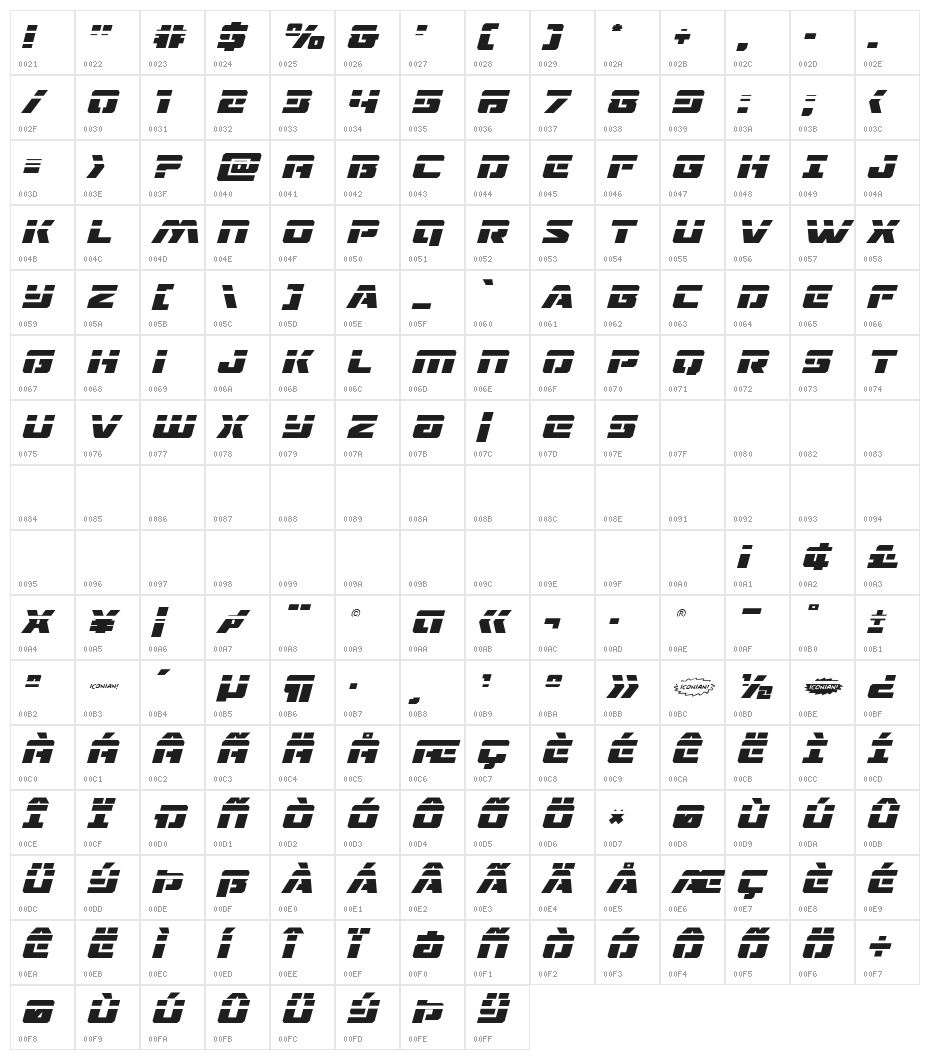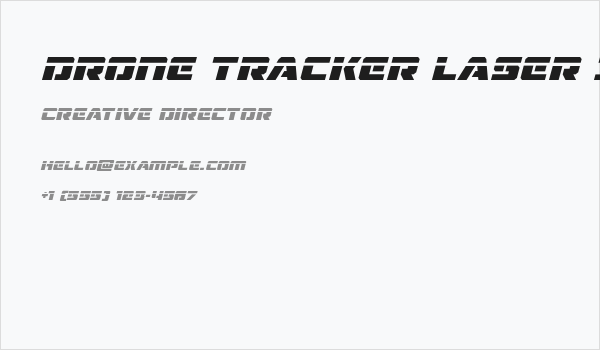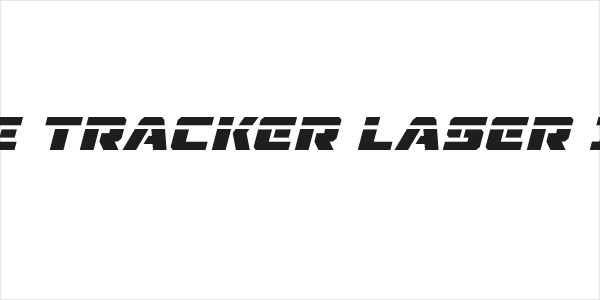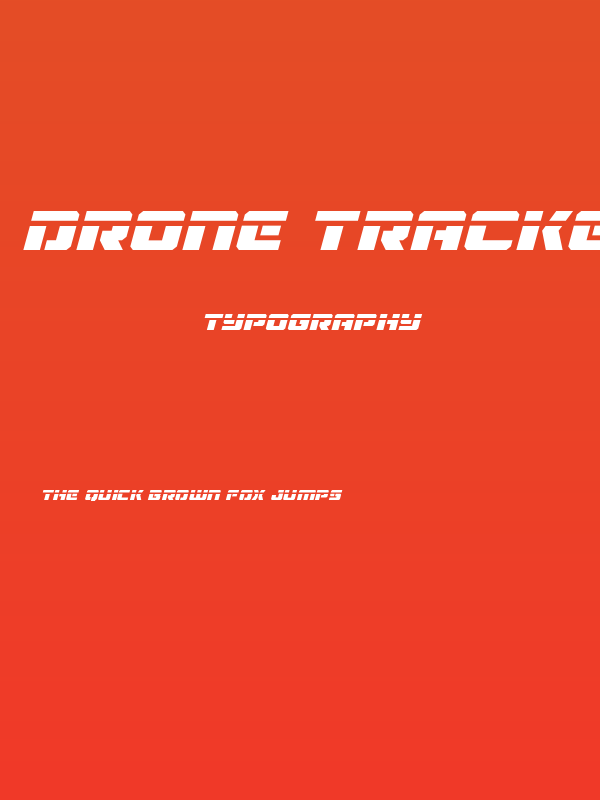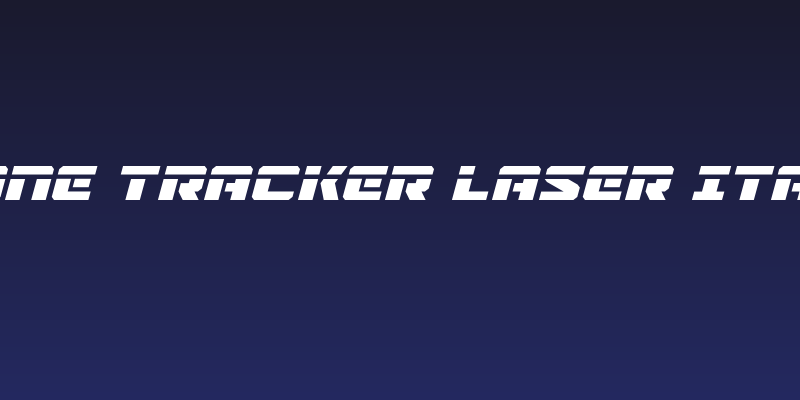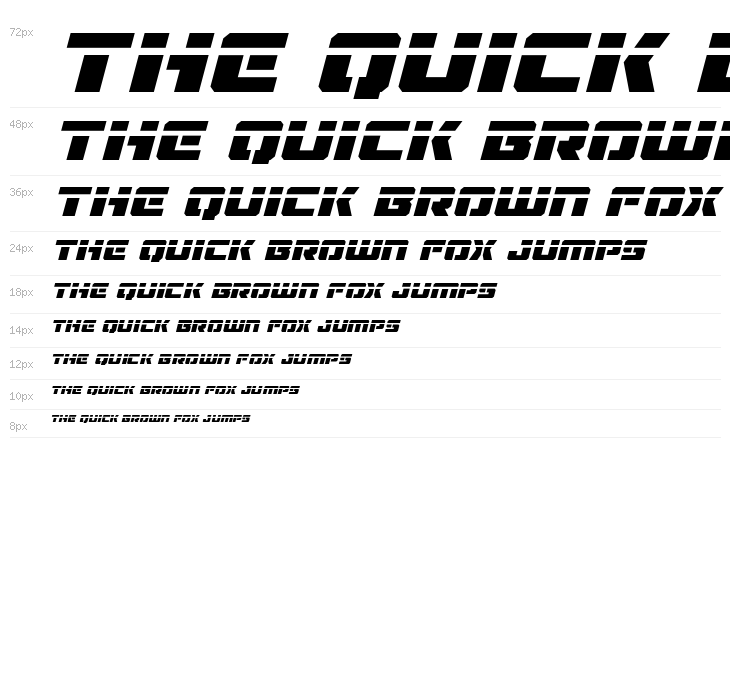
Drone Tracker Laser Italic Font
Drone Tracker Laser Italic Description
This font features a futuristic and angular design, characterized by its bold and dynamic appearance. The letters are sharply cut with a slanted, italicized style that gives a sense of motion and speed. Each character is distinct with geometric shapes and sharp edges, creating a high-tech and modern aesthetic. The font is well-suited for projects that require a strong, impactful presence, such as technology branding, video game titles, or sci-fi themed designs. Its boldness and unique style make it stand out, while the italic slant adds a touch of elegance and sophistication.
| Proposed Projects | Ideal for technology branding, video game titles, sci-fi themes, and modern design projects. |